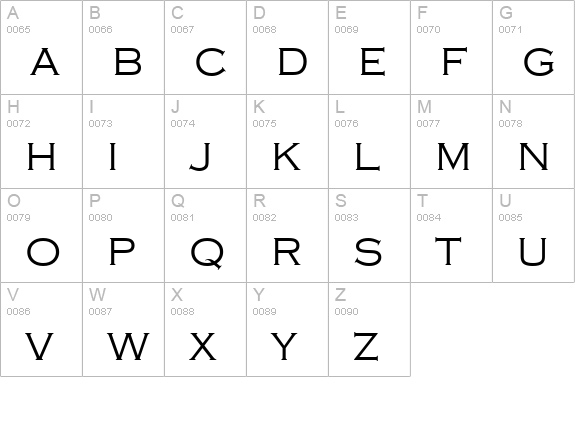
Copperplate-Gothic-Light-Regular Font Details
Copperplate-Gothic-Light-Regular is a refined, elegant variant in the Copperplate typeface family \xE2\x80\x94 well suited to elegant body text, refined sub-headings, and luxury branding.
Copperplate Gothic Light Regular is a timeless and elegant font that exudes sophistication and professionalism. Its delicate yet strong lines make it perfect for a wide range of design projects, from formal invitations to corporate branding. This classic typeface is versatile and easy to read, making it a popular choice for both print and digital media. What sets Copperplate Gothic Light Regular apart is its unique blend of traditional and modern elements, giving it a distinctive and refined look. The font's clean and crisp appearance adds a touch of class to any design, making it a favorite among designers and typographers alike. And the best part? Copperplate Gothic Light Regular is available for free download at FontsMarket.com. So whether you're working on a personal project or a professional assignment, you can easily access this beautiful font without breaking the bank. Give your designs a touch of sophistication with Copperplate Gothic Light Regular – download it now and elevate your typography game!